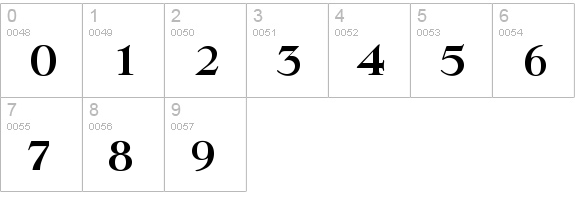
Lingwood-DemiBold is a sub-bold, structured variant in the Lingwood typeface family \xE2\x80\x94 well suited to sub-headlines and emphasised passages.
Lingwood-DemiBold is a versatile and modern font that exudes elegance and sophistication. With its clean lines and bold presence, this typeface is perfect for making a statement in both digital and print designs. The Lingwood-DemiBold font strikes the perfect balance between professionalism and creativity, making it a go-to choice for designers looking to add a touch of flair to their projects. The best part? Lingwood-DemiBold is completely free to download at FontsMarket.com. Whether you're working on a website, branding materials, or any other design project, this font is sure to elevate your work with its unique style and readability. Don't miss out on the opportunity to enhance your designs with the striking presence of Lingwood-DemiBold - download it today and let your creativity soar!